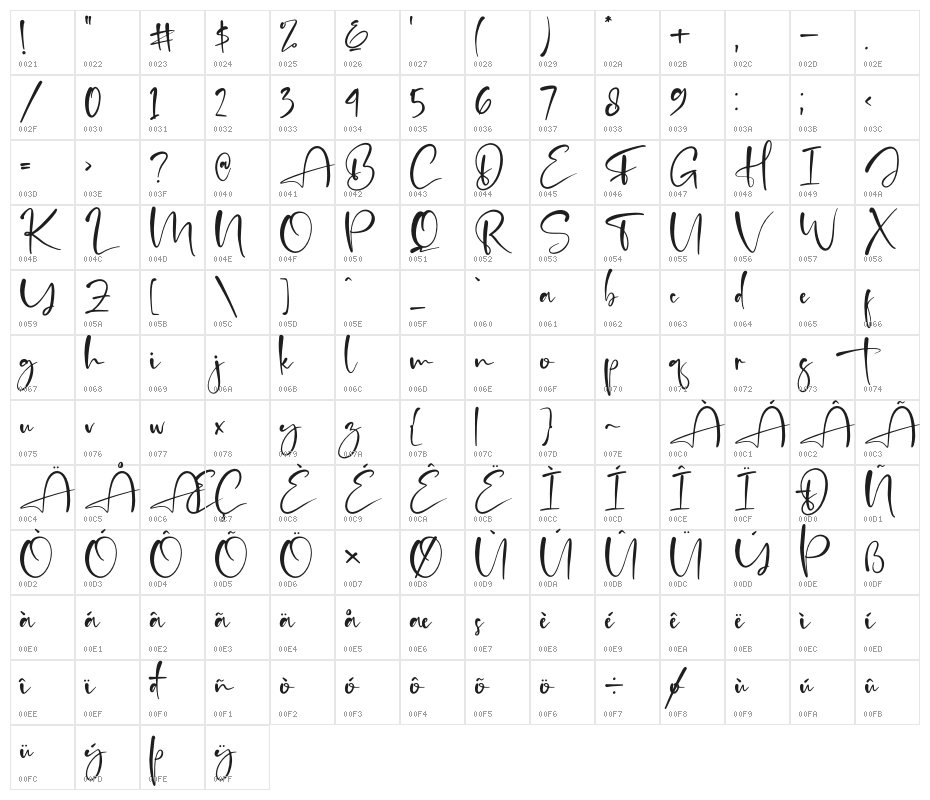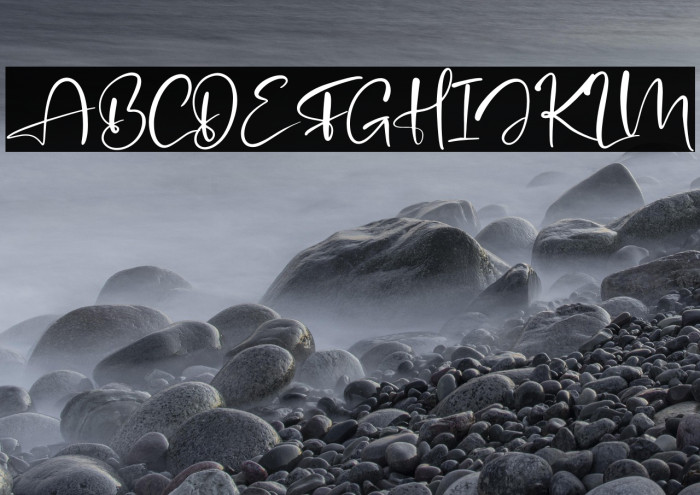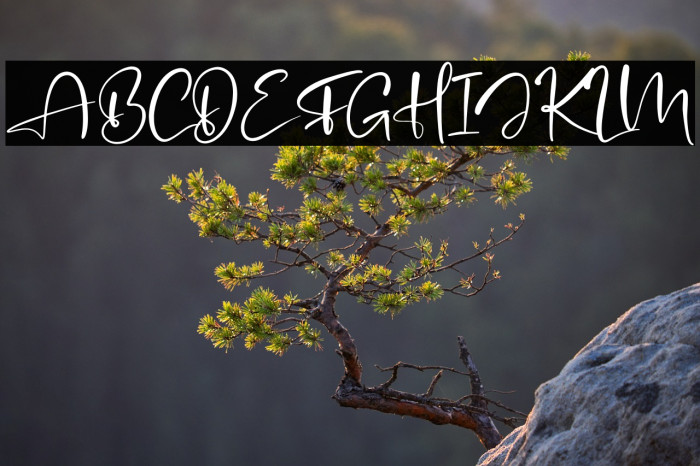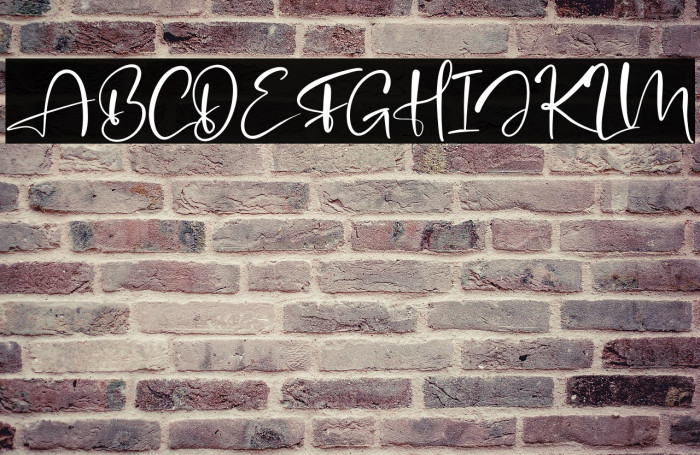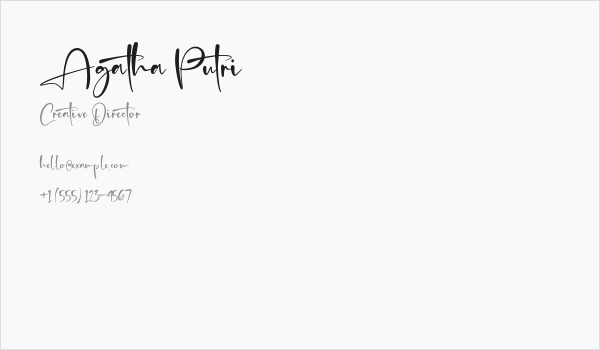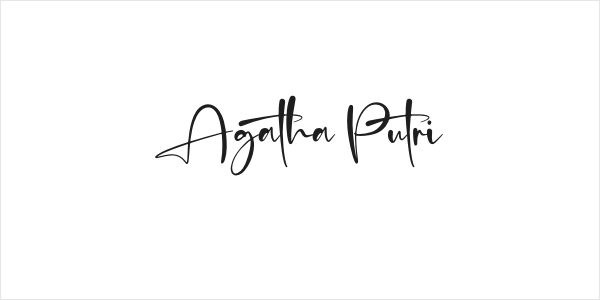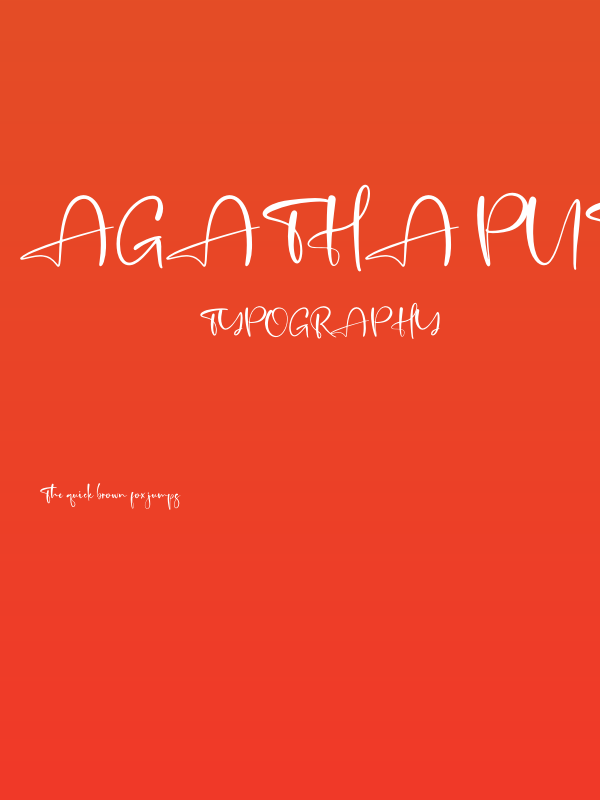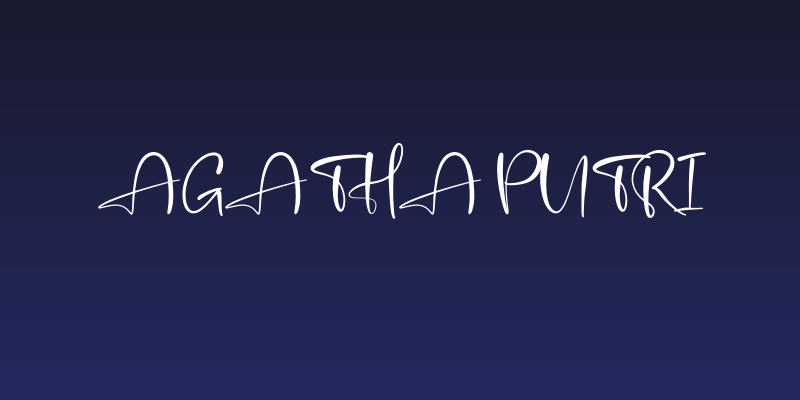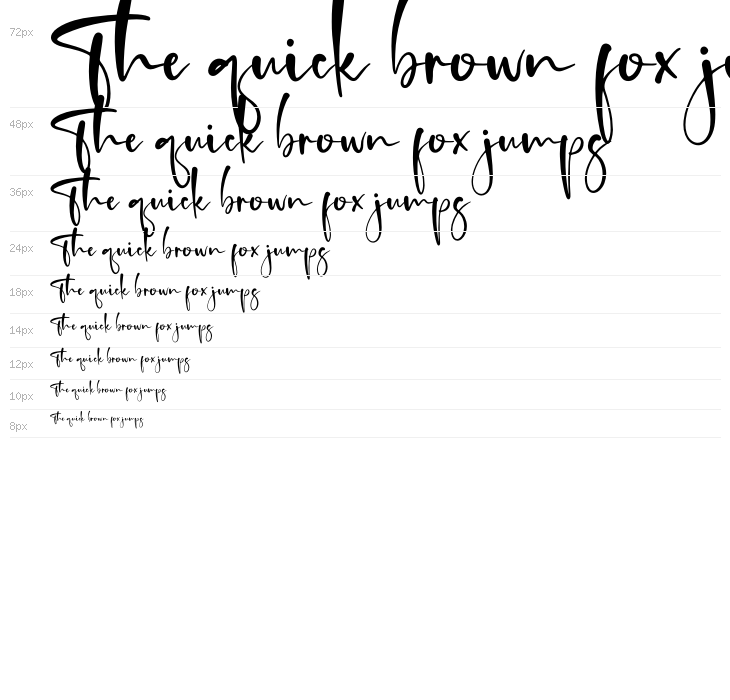
Agatha Putri Font
Agatha Putri Description
This font features a dynamic and expressive handwritten style, characterized by its fluid and flowing letterforms. The uppercase letters exhibit a playful yet elegant flair, with varying stroke widths that add a sense of movement and energy. The lowercase letters maintain a consistent style, enhancing readability while preserving the artistic touch. Numbers and special characters are crafted with the same attention to detail, ensuring a cohesive appearance across all elements. This font's unique personality makes it suitable for creative projects that require a personal and artistic touch.
| Proposed Projects | Ideal for wedding invitations, greeting cards, branding projects, and artistic posters. |